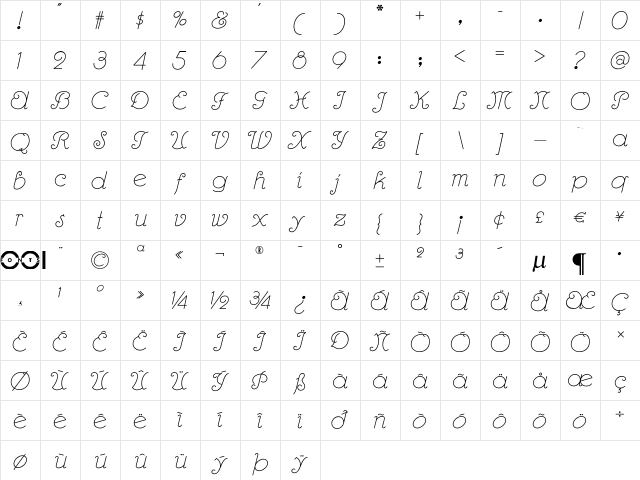
Rhumba Script NF Regular
| Foundry | Nick's Fonts |
| Designer | Nick Curtis |
Design Context for Rhumba Script NF Typeface
Rhumba Script NF flows with the natural rhythm of handwritten lettering, making it ideal for designs that call for warmth and personal expression.
Font Pairing: Combine Rhumba Script NF with a simple geometric sans for maximum contrast — the tension between flowing curves and clean structure is a classic typographic pairing.
Pro Tip: Use Rhumba Script NF for short runs of text — names, titles, or taglines. Extended body copy in script faces tires the eye quickly.